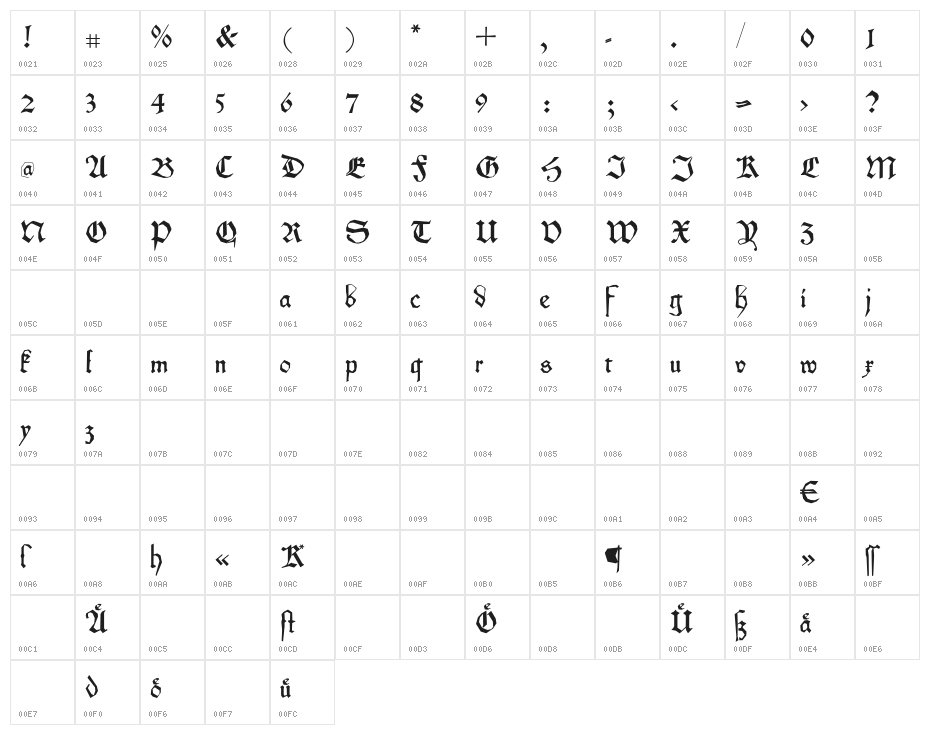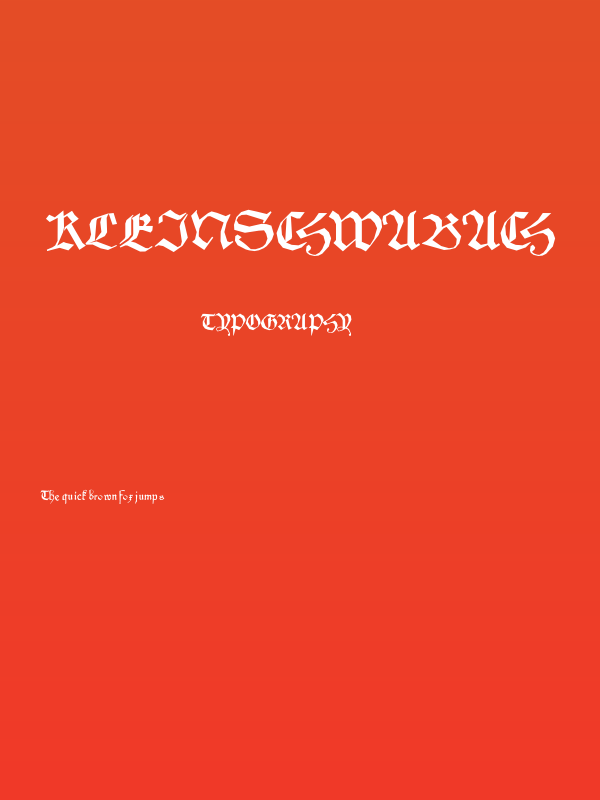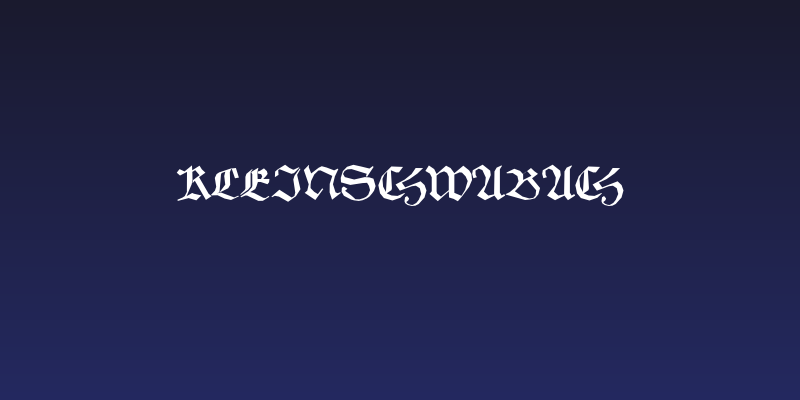
KleinSchwabach Font
KleinSchwabach Description
This font exhibits a traditional blackletter style, characterized by its intricate and ornate letterforms. The uppercase letters are bold and angular, with sharp serifs and a distinct medieval aesthetic. The lowercase letters maintain a consistent style, featuring elaborate curves and pointed edges that enhance the historical feel. Numbers and special characters are designed to match the overall theme, with a similar level of detail and complexity. The font's unique appearance makes it ideal for projects that require a touch of old-world charm and elegance.
| Proposed Projects | Suitable for historical documents, certificates, wedding invitations, and branding that requires a vintage or gothic touch. |